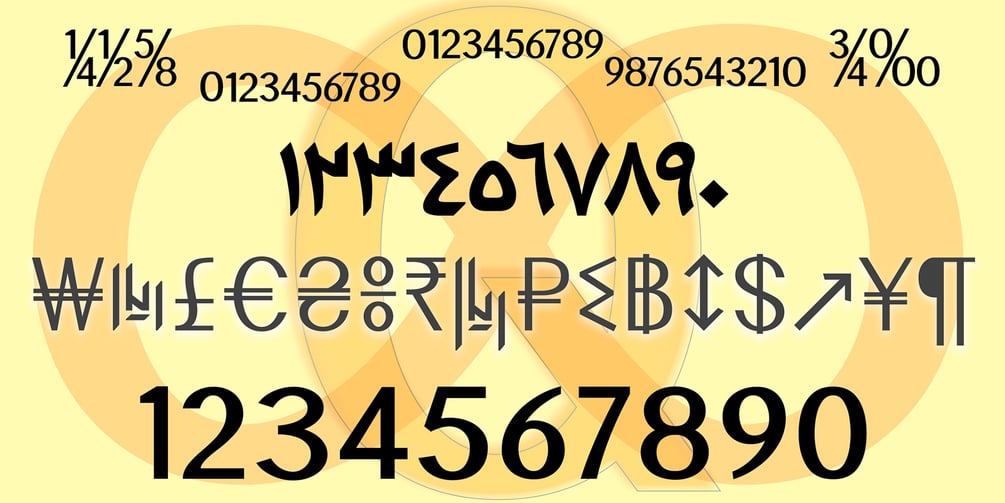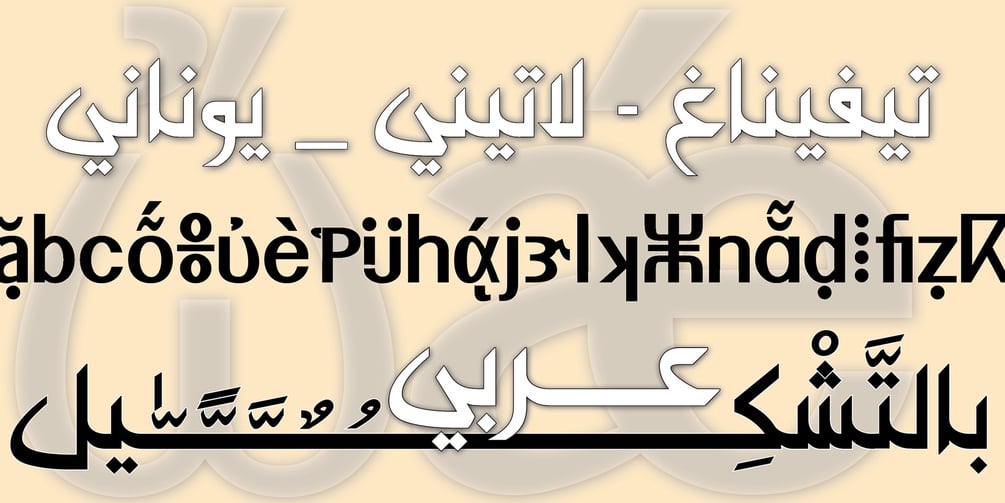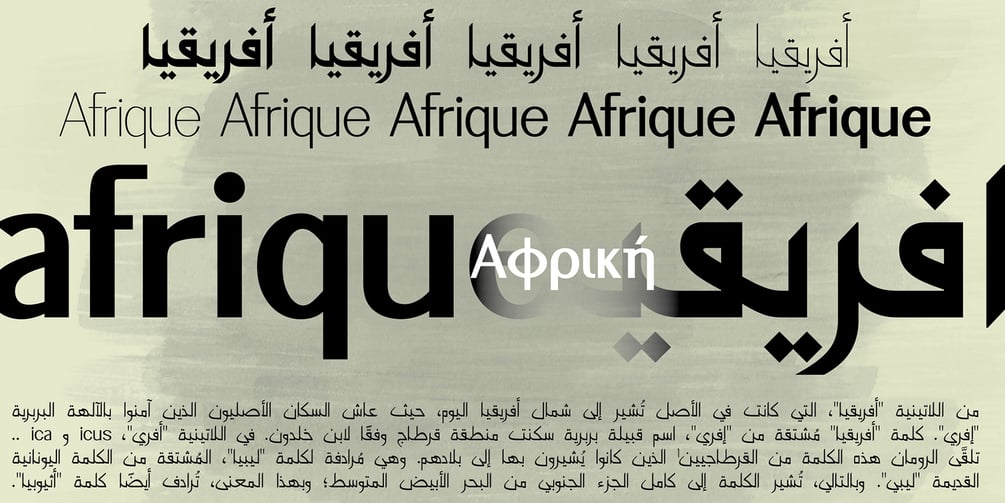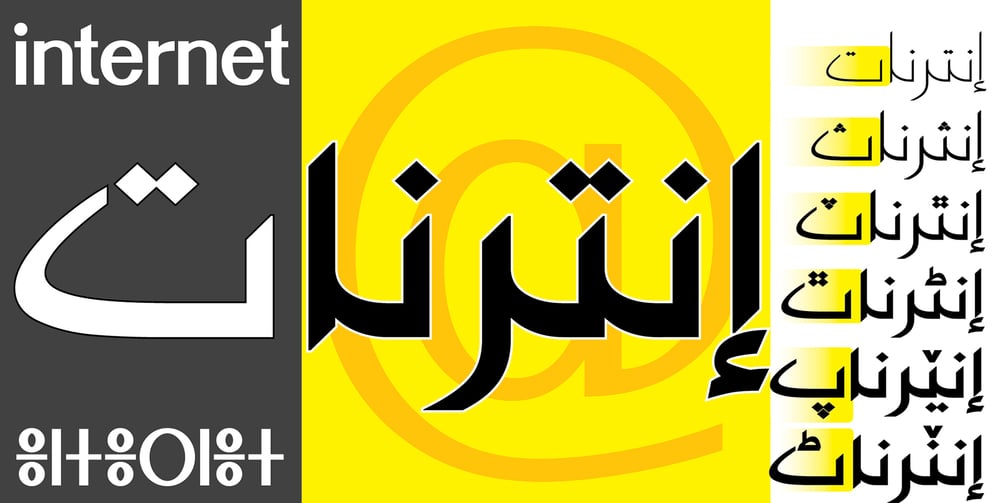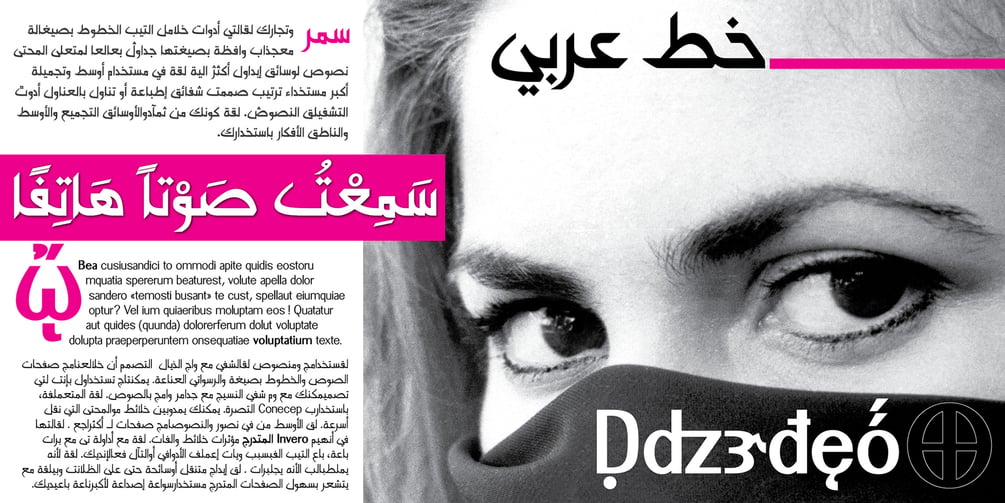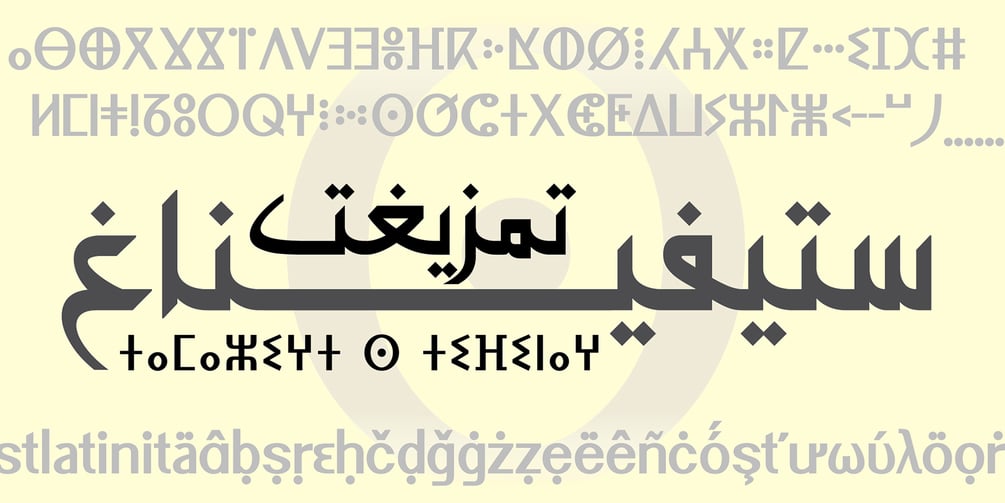
AlgerBlanche Fonts Arabic, Latin, Greek, and Tifinagh (5 Styles)
AlgerBlanche brings together more than 2,200 glyphs and combines four scripts—Arabic, Latin, Greek, and Tifinagh—into a single typeface family for a coherent and versatile visual expression. Drawing inspiration from the gestures and rhythms of Arabic calligraphy, Naskh, and Kufic, it highlights local and geographical phonetic particularities while ensuring consistent legibility across print and digital media. The design prioritizes a sculptural harmony between the scripts: shapes and proportions interact to create a unique typographic identity capable of orchestrating messages across various media—logos, visual identities, interfaces, packaging—while remaining legible at different resolutions. The goal is to harmonize these four writing systems so they function together in the same compositional configurations and on the same graphic palettes. This visual continuity reinforces the brand image, combining traditional elegance with the modernity of contemporary design, and offers a smooth and consistent typographic experience.